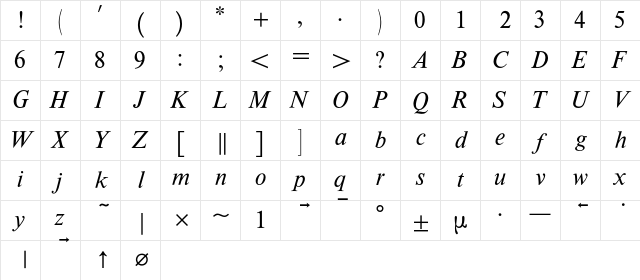
Complete TimesMath 2 BQ Regular glyph index. Displaying only characters natively supported by TimesMath 2 BQ Regular font.
TimesMath 2 BQ is a composed and adaptable typeface that performs quietly and consistently across a wide range of design contexts.